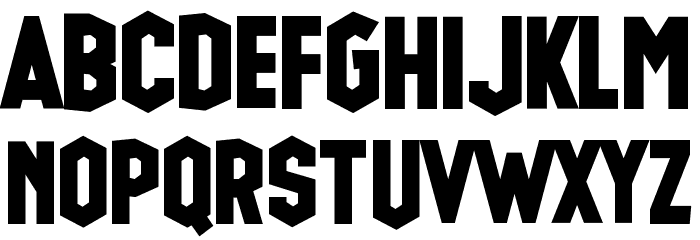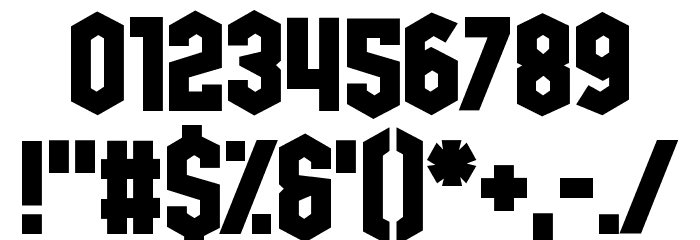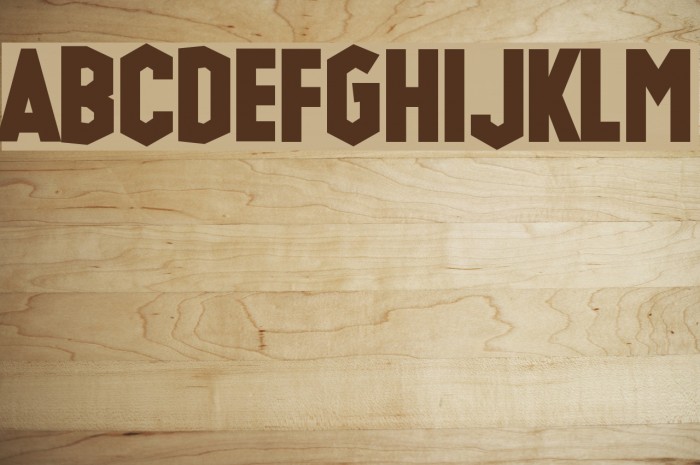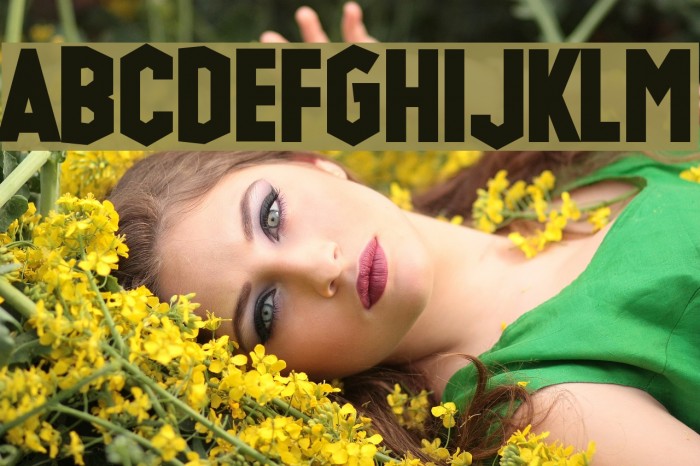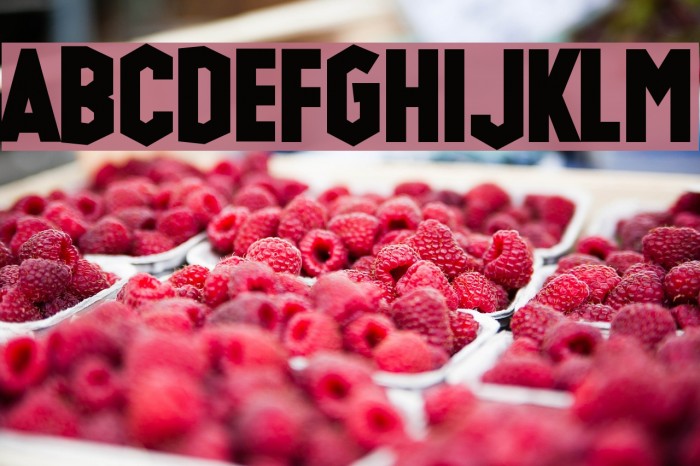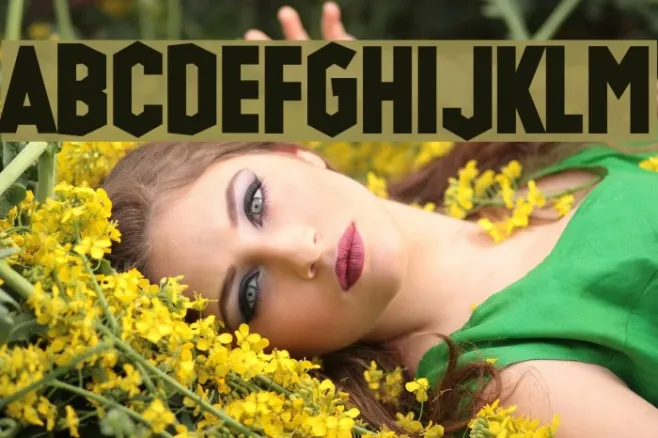
Glue Gun Font
This font features a bold and impactful design with strong geometric shapes and sharp angles. The characters are uniformly thick, giving them a robust and solid appearance. The uppercase letters are particularly striking, with a blocky and industrial feel that commands attention. The numbers and special characters maintain this bold aesthetic, ensuring consistency across all glyphs. The font's design is reminiscent of stencil or industrial signage, making it ideal for projects that require a strong visual presence.
A bold, geometric font with a strong industrial and blocky appearance.
- Proposed Projects: This font is perfect for branding, posters, headlines, and any design work that requires a bold and assertive typeface. It can also be used effectively in logos and signage where a strong visual impact is needed.